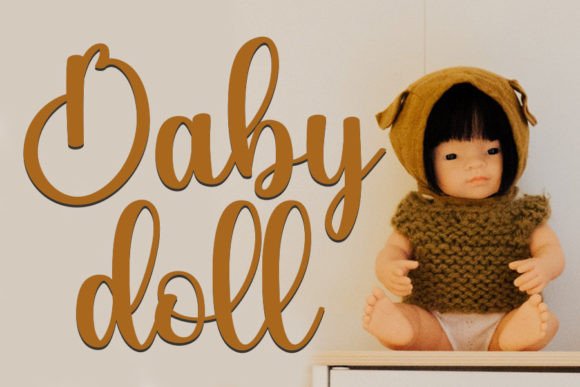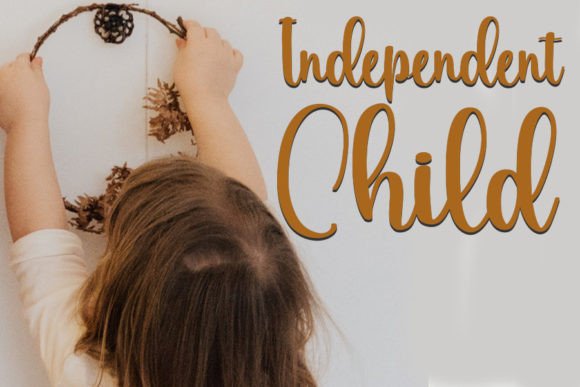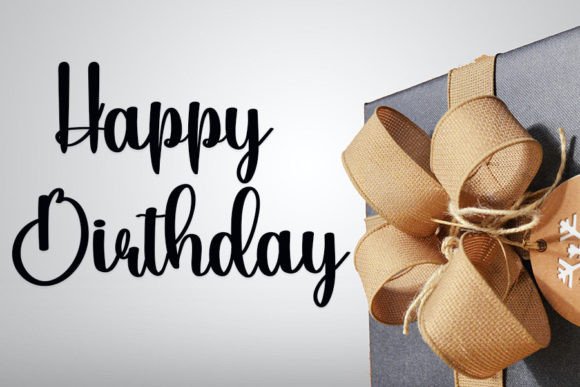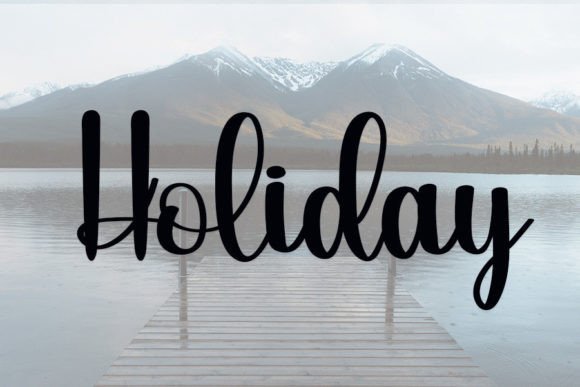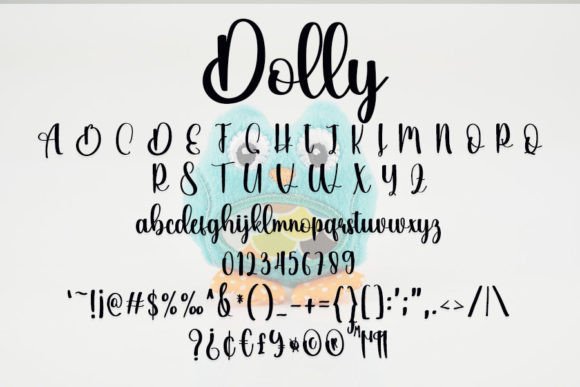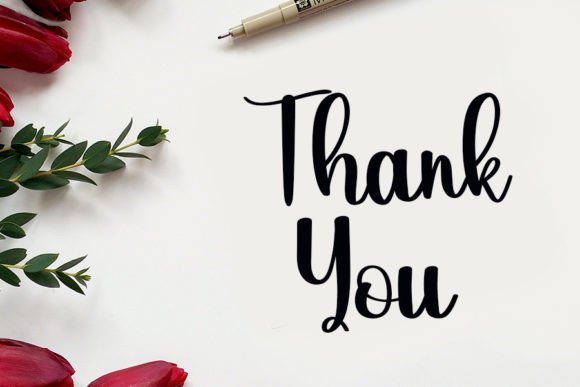
Dolly Font: Elevate Your Designs with a Modern Handwritten Style
Are you tired of using the same old fonts in your designs? Look no further than Dolly Font, a cool handwritten font that brings a modern vibe and spotless form to your projects. Inspired by classic calligraphy, Dolly Font is the perfect choice for designers and crafters looking to add a touch of elegance and sophistication to their work.
A Balanced and Varied Font
One of the standout features of Dolly Font is its balanced and varied design. Not too thin and not too thick, this font strikes the perfect balance between style and readability. The letters are carefully crafted to create a sense of movement and fluidity, making it perfect for use in a variety of projects, from branding and advertising to packaging and signage.
Inspired by Classic Calligraphy
Dolly Font is inspired by the classic calligraphy of the past, but with a modern twist. The font’s designer has carefully studied the classic calligraphy styles and incorporated elements of them into Dolly Font, while also adding a fresh and modern spin. The result is a font that is both timeless and contemporary, perfect for designers who want to create projects that are both stylish and sophisticated.
Dolly Font is a versatile font that can be used in a wide range of projects, including:
- Branding and advertising: Use Dolly Font to create eye-catching logos, ads, and marketing materials that will help your brand stand out.
- Packaging: Add a touch of elegance and sophistication to your product packaging with Dolly Font.
- Signage: Use Dolly Font to create eye-catching signs and displays that will grab attention and leave a lasting impression.
- Stationery: Add a personal touch to your stationery and correspondence with Dolly Font.
Why Choose Dolly Font?
So why choose Dolly Font over other fonts? Here are just a few reasons:
- Unique and stylish: Dolly Font is a one-of-a-kind font that will add a touch of style and sophistication to your projects.
- Highly readable: Despite its elegant design, Dolly Font is highly readable, even at small sizes.
- Versatile: Dolly Font can be used in a wide range of projects, from branding and advertising to packaging and signage.
Tips for Using Dolly Font
Here are a few tips for getting the most out of Dolly Font:
- Use it sparingly: Dolly Font is a stylish font, but it can be overwhelming if used too much. Use it sparingly to add emphasis and create visual interest.
- Pair it with other fonts: Dolly Font pairs well with a variety of other fonts, including sans-serif fonts and script fonts.
- Experiment with different sizes: Dolly Font looks great at a variety of sizes, from large headings to small body text.
Dolly Font is a cool handwritten font with a modern vibe and spotless form, inspired by classic calligraphy. With its balanced and varied design, Dolly Font is perfect for designers and crafters looking to add a touch of elegance and sophistication to their projects. Whether you’re working on a branding project, packaging design, or signage, Dolly Font is a versatile and stylish choice that is sure to impress.